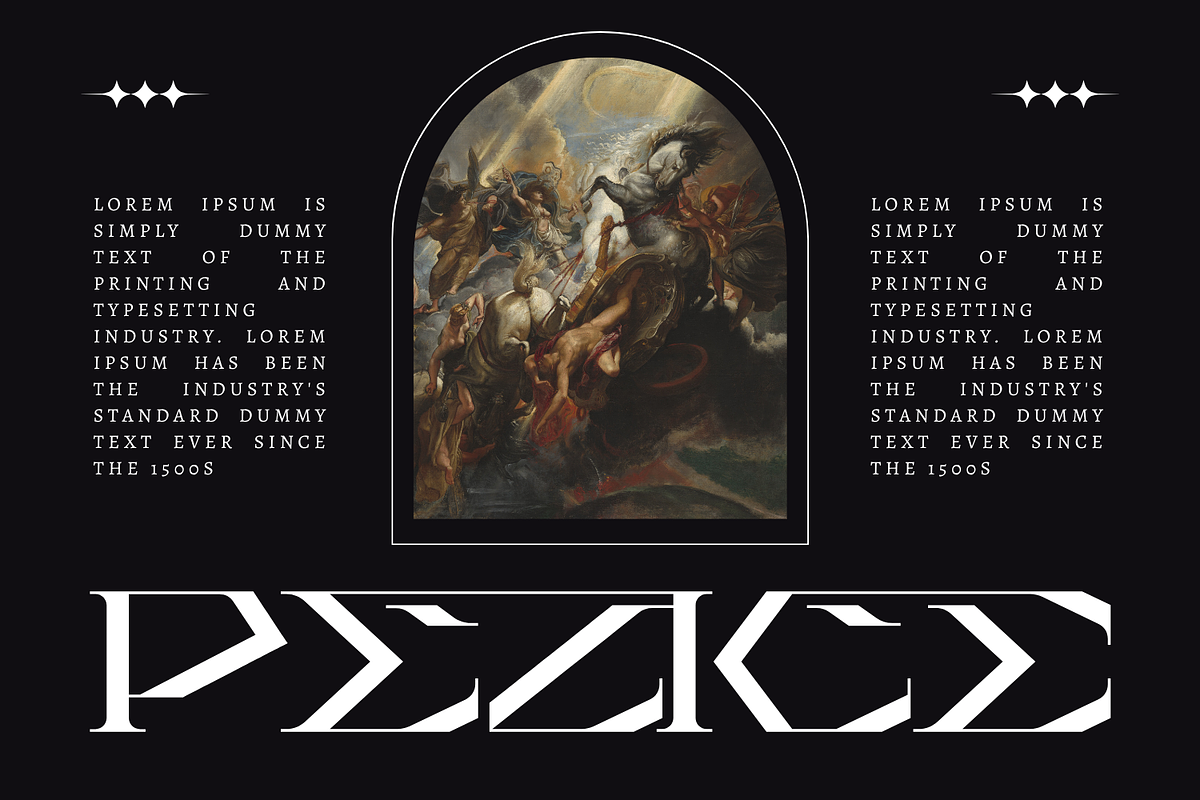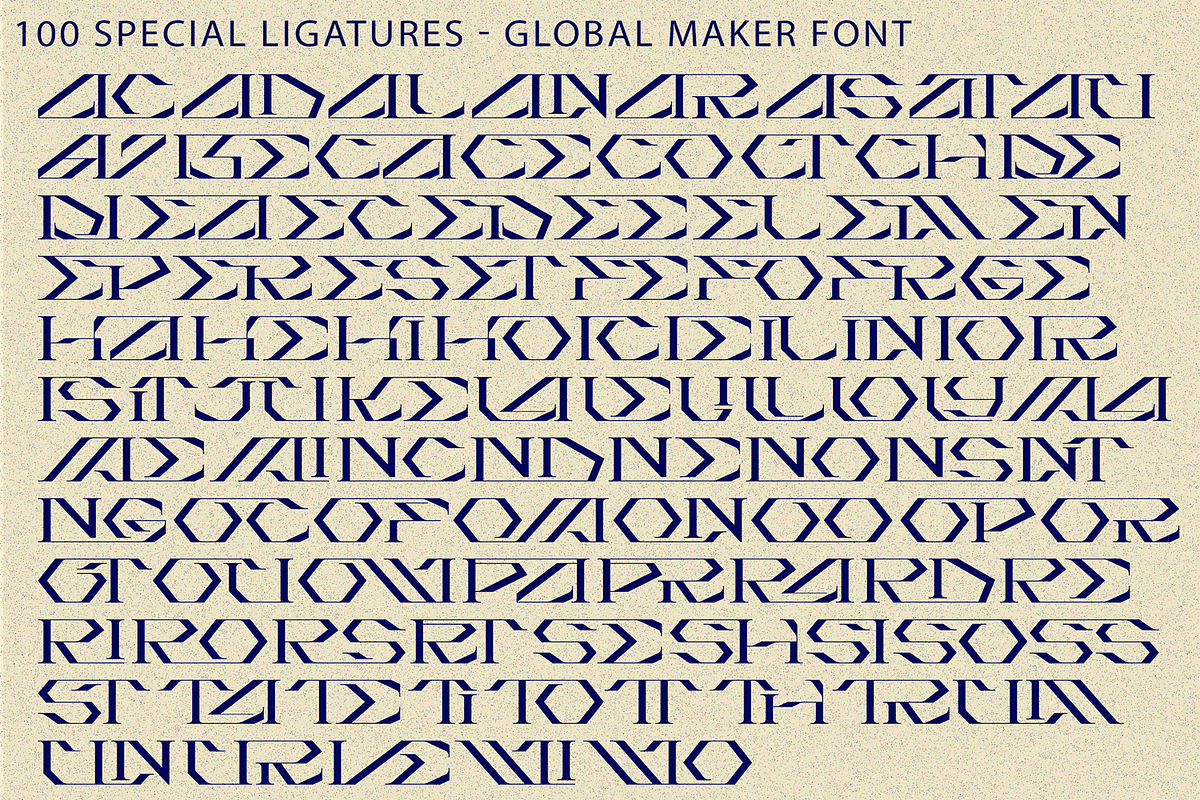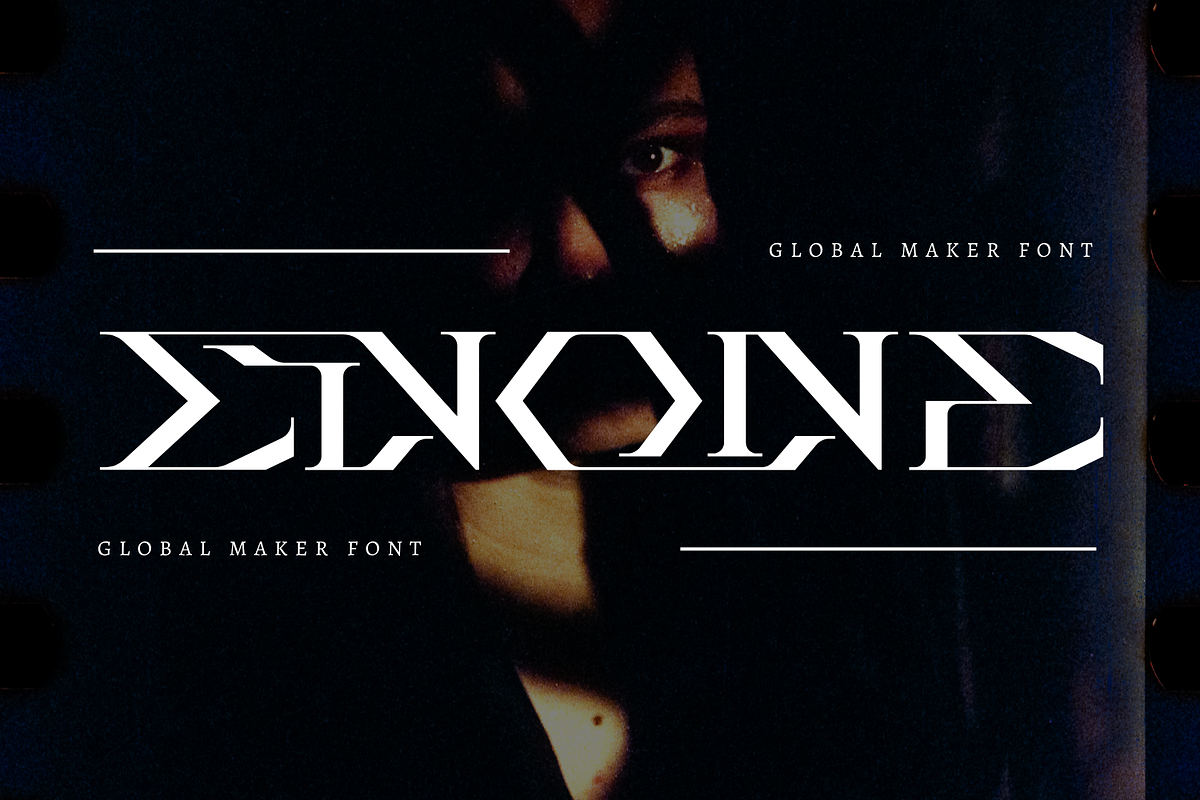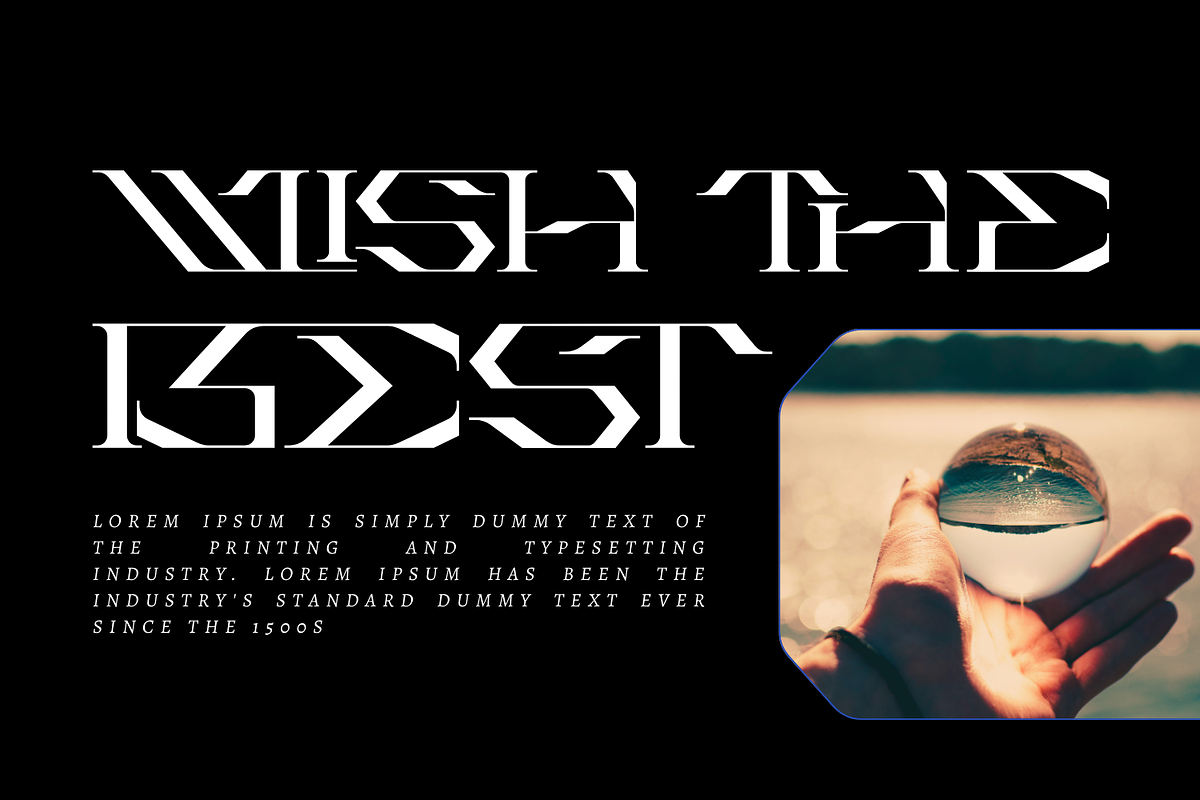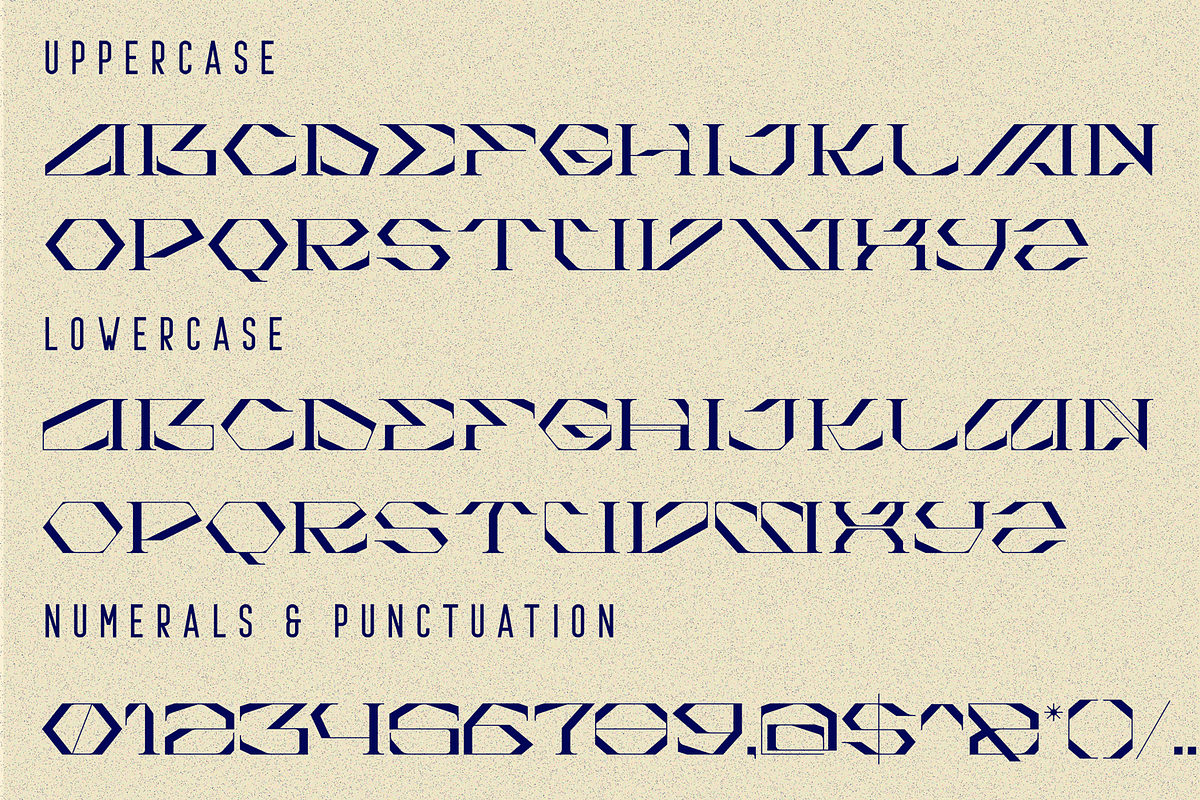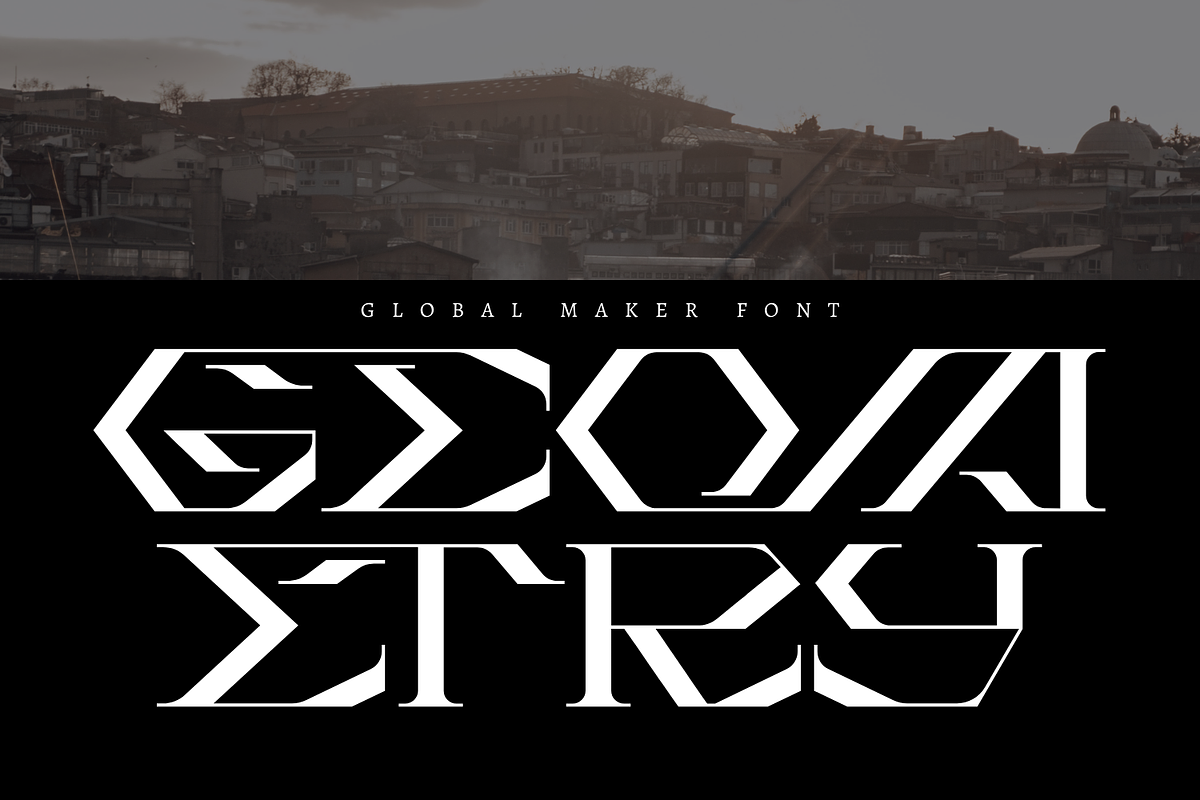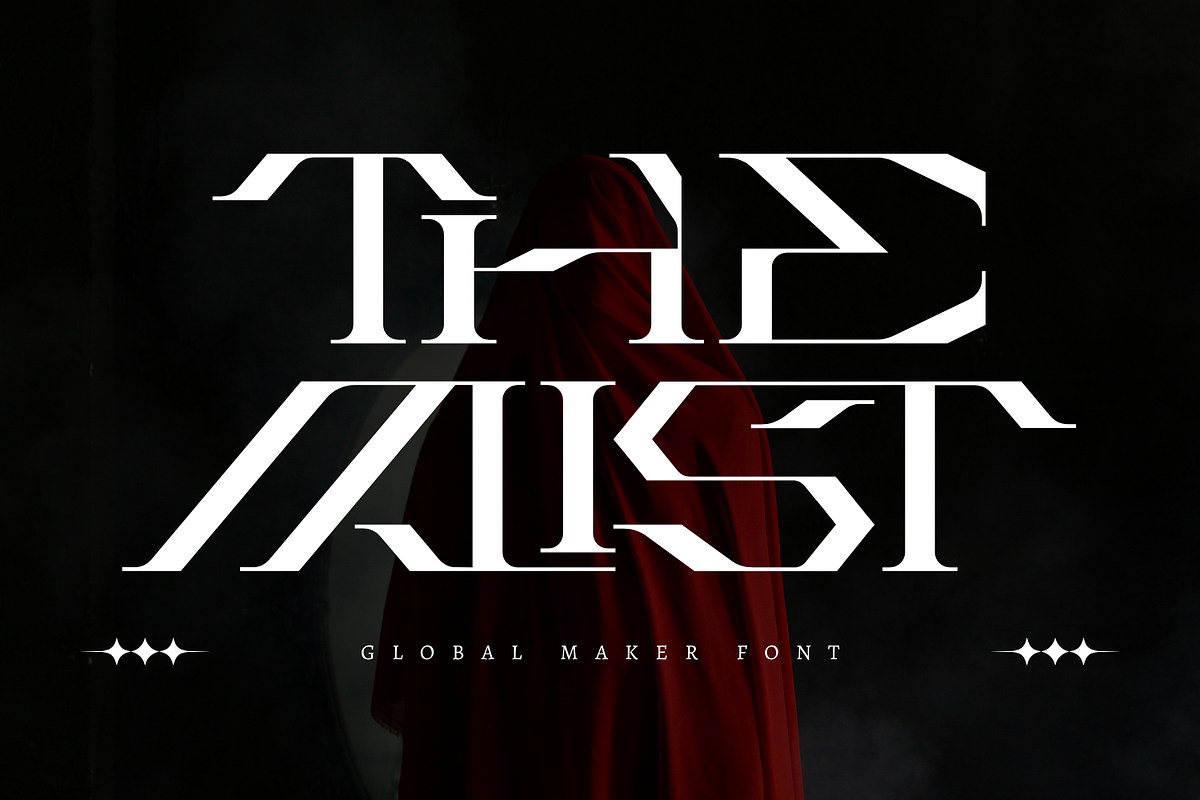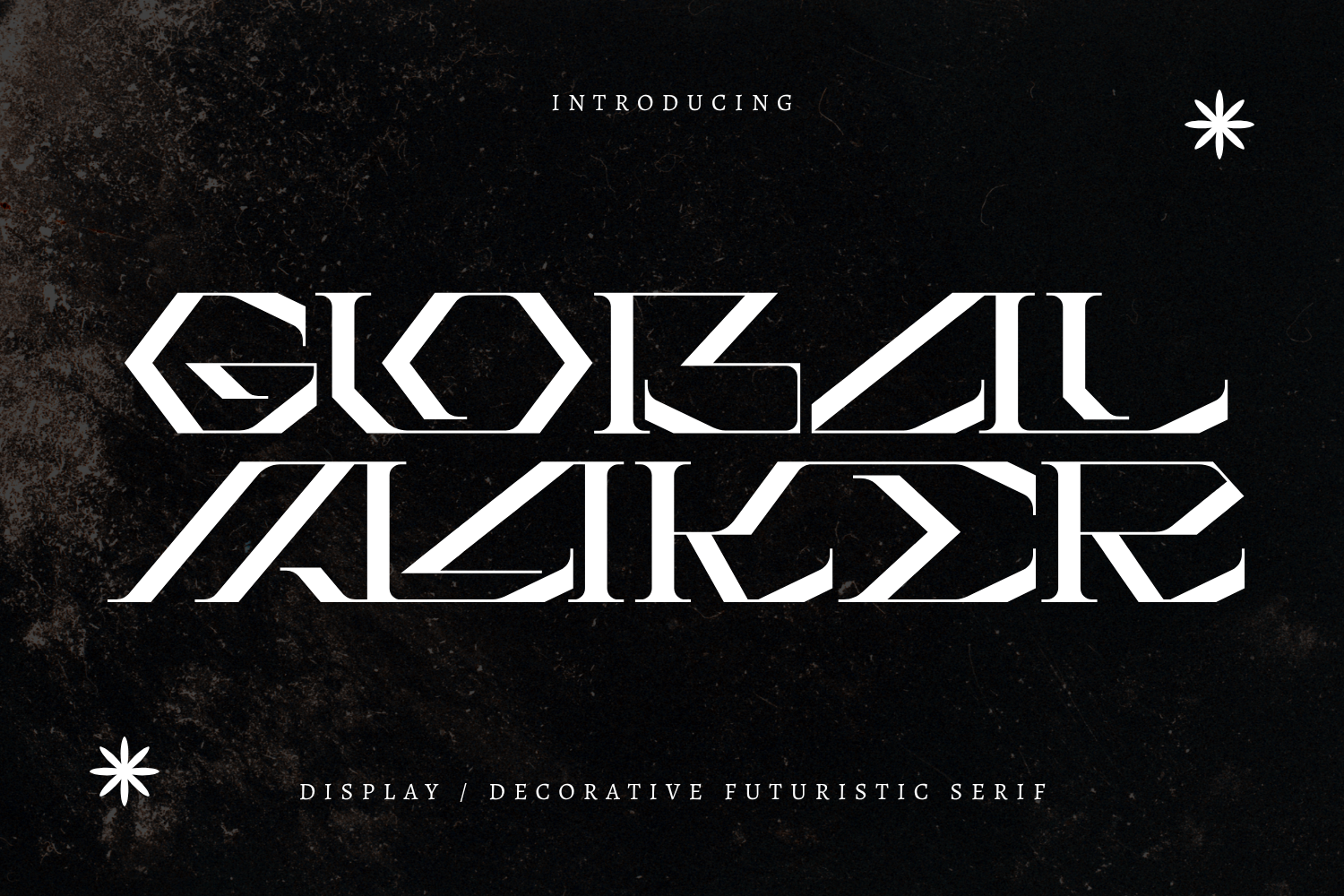
Global Maker - Techno Serif Font
Global Maker - Techno Serif Font is a futuristic angular display serif font that blends classic sophistication with sharp sci-fi energy. Designed with strong geometric cuts, wide proportions, and refined high-contrast letterforms, this typeface delivers a bold cinematic presence with a modern technical edge. Its distinctive angular details and sleek serif-inspired structure create a powerful visual rhythm, making Global Maker perfect for movie titles, gaming logos, technology branding, sci-fi posters, premium packaging, and futuristic editorial design.
🔤Features:
Uppercase & Lowercase Letters
Around 100 Special Ligatures & Alternates
Accented Characters for multilingual support
🔤About 100 ligatures combined with Stylistic Alternates Font:
ac ad al an ar as at au av be ca ce ch co ct de di ea ec ed ee el em en ep er es et fe fo fr ge ha he hi ho ie ic il in io ir is it ju ke la le li ll lo ly ma me mi nc nd ne ng no nt ns oc of om on oo op or ot ou ow pa pr ra rd re ri ro rs rt se sh si so ss st ta te th ti to tr tt um un ur ve wi wo